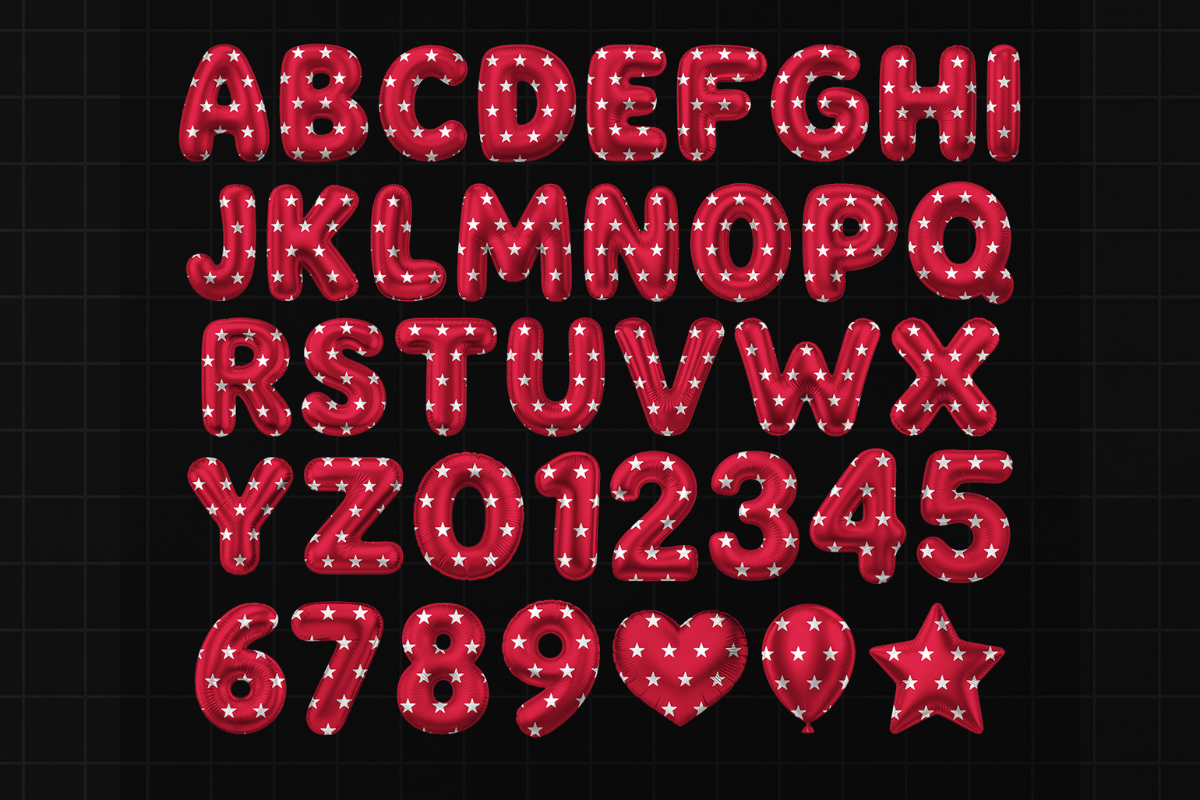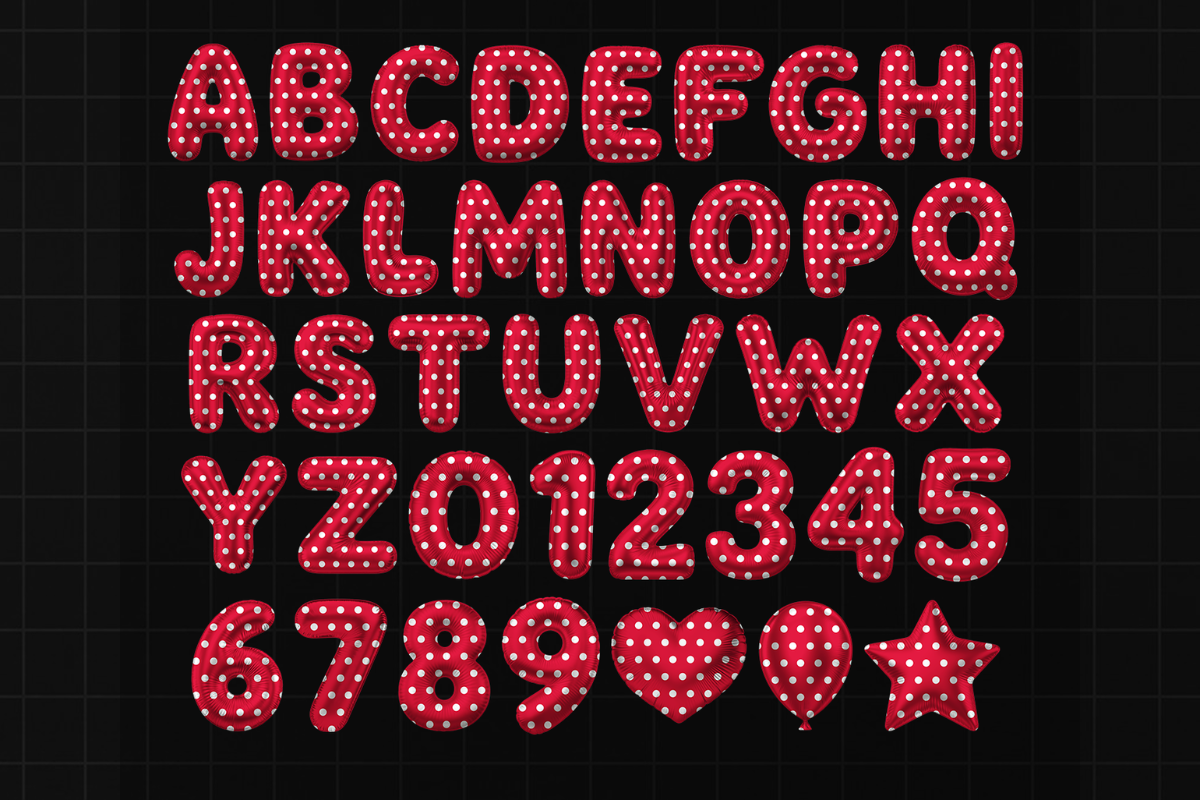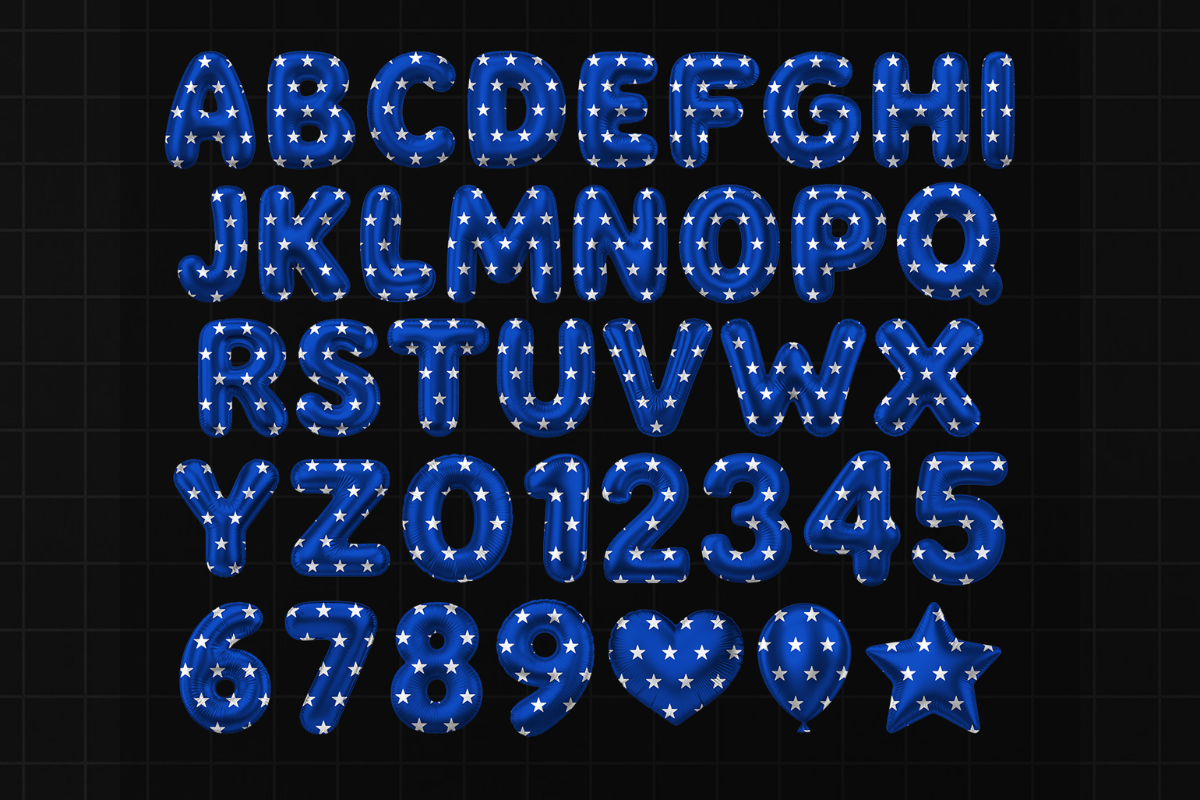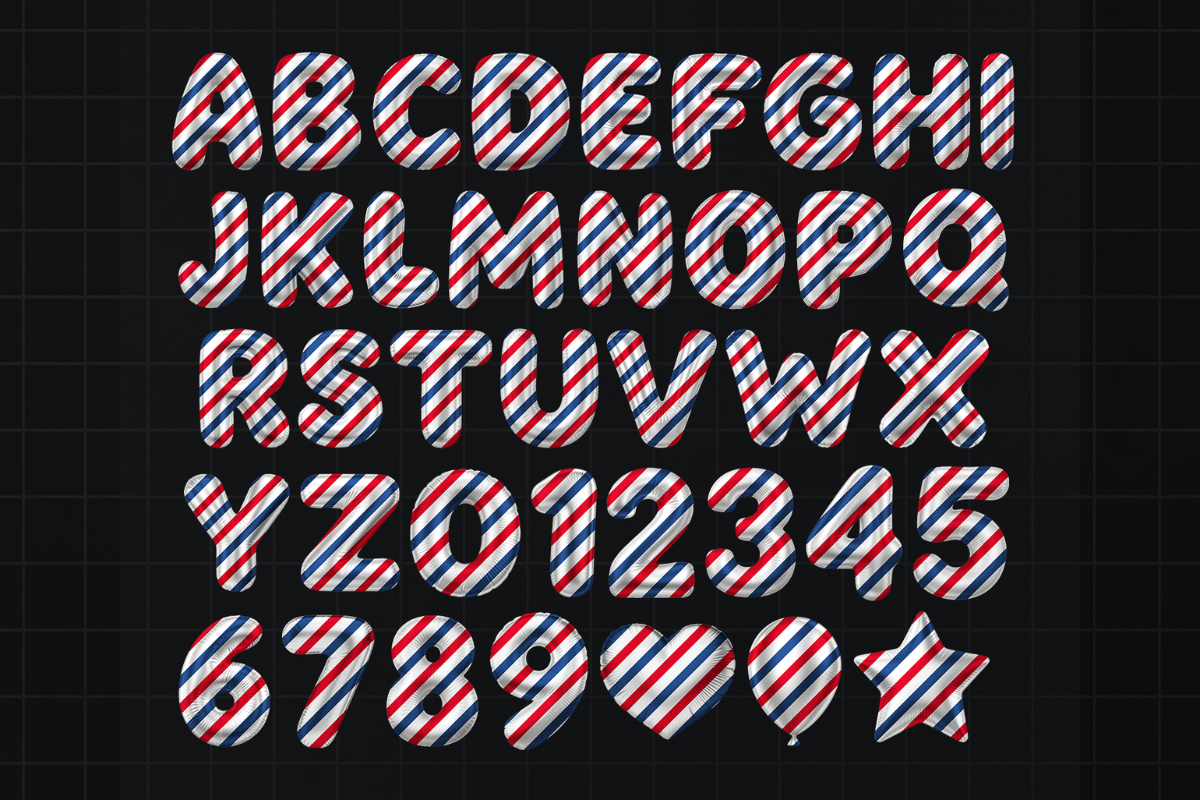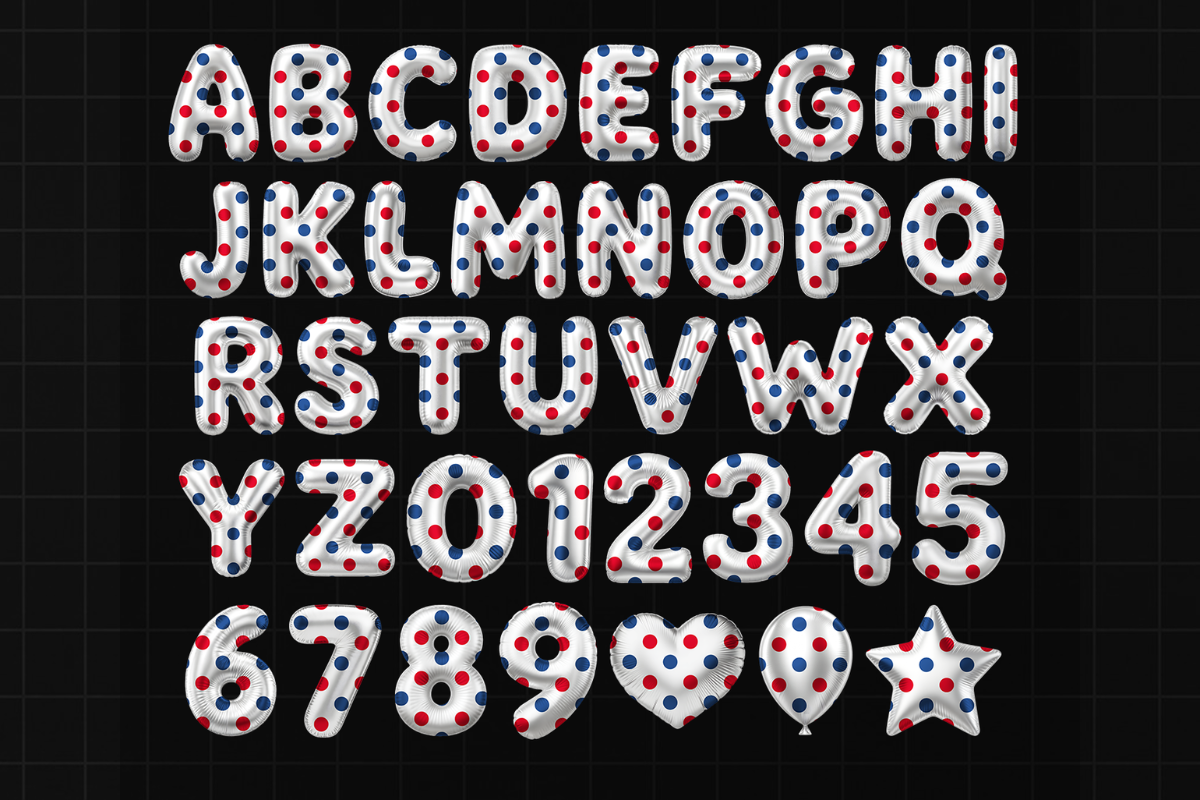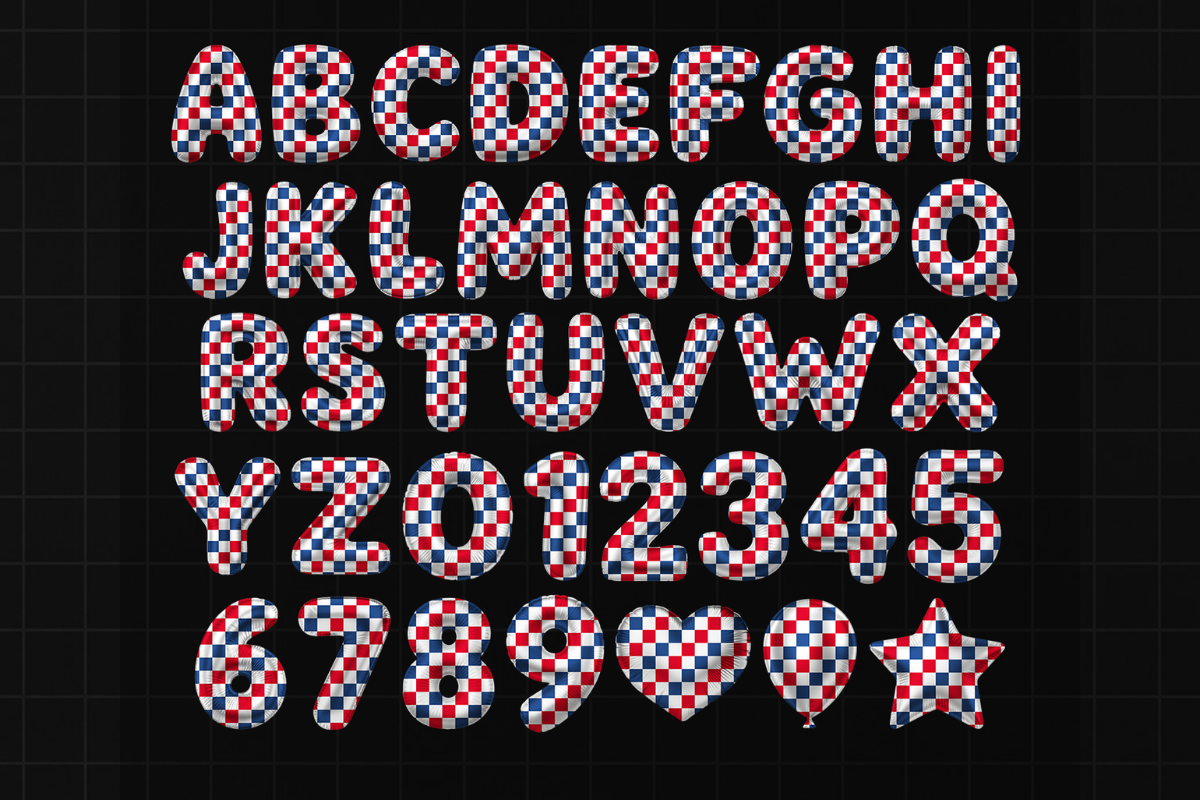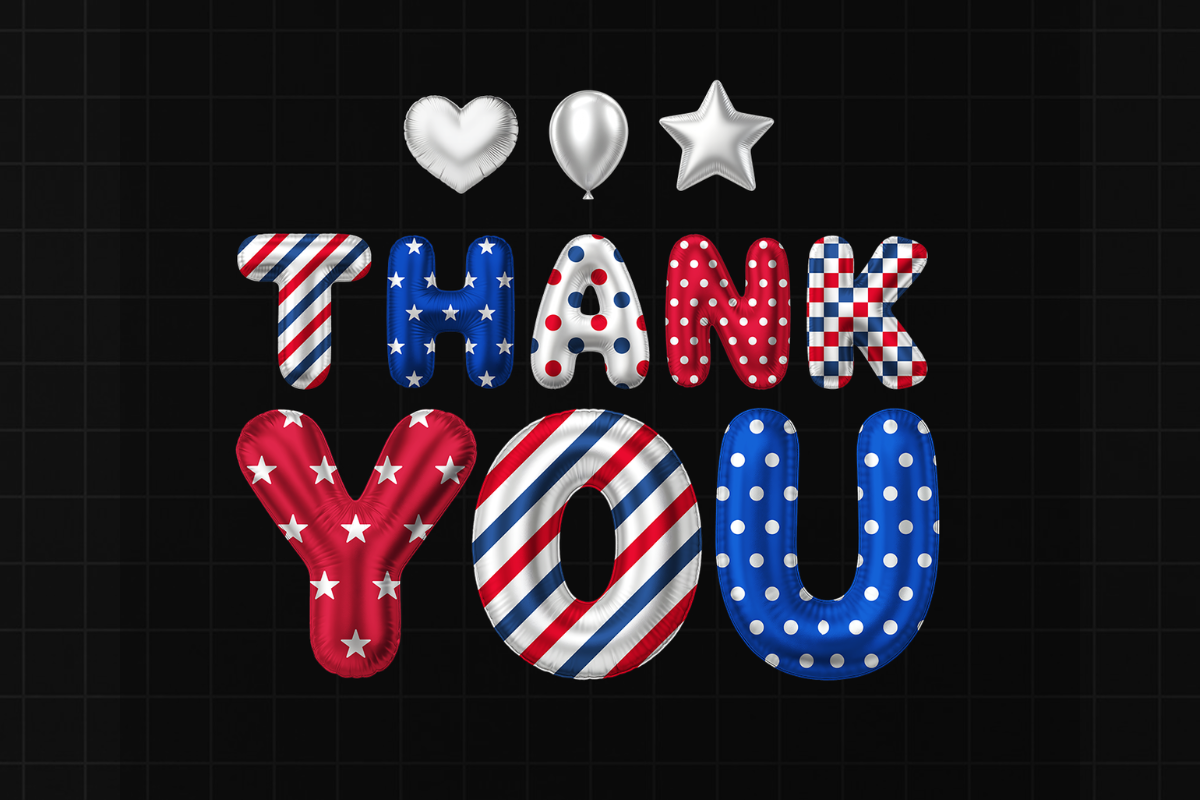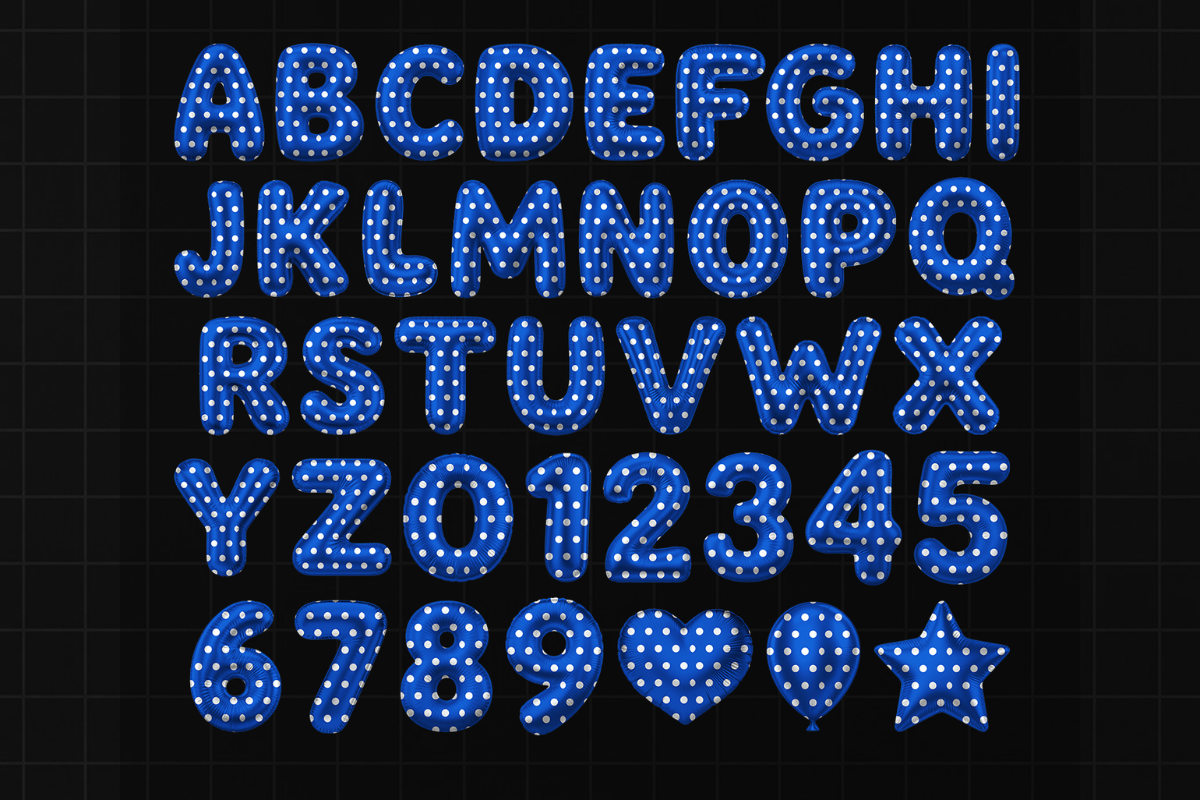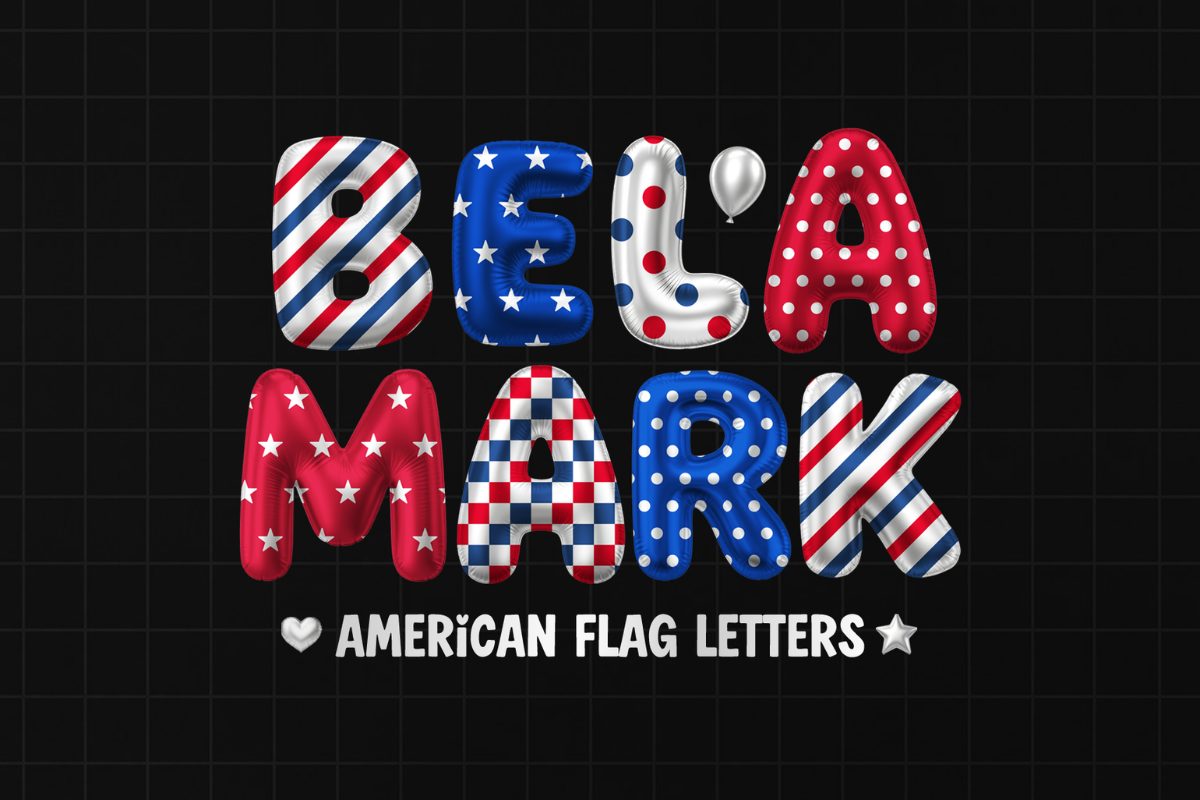
American USA Flag Balloon Font PNG
8 Styles of USA Balloon Alphabet [ A to Z & Numbers ] in PNG format, 300 DPI for Print and Sublimation. Download your files directly from the link in the PDF or TXT file.